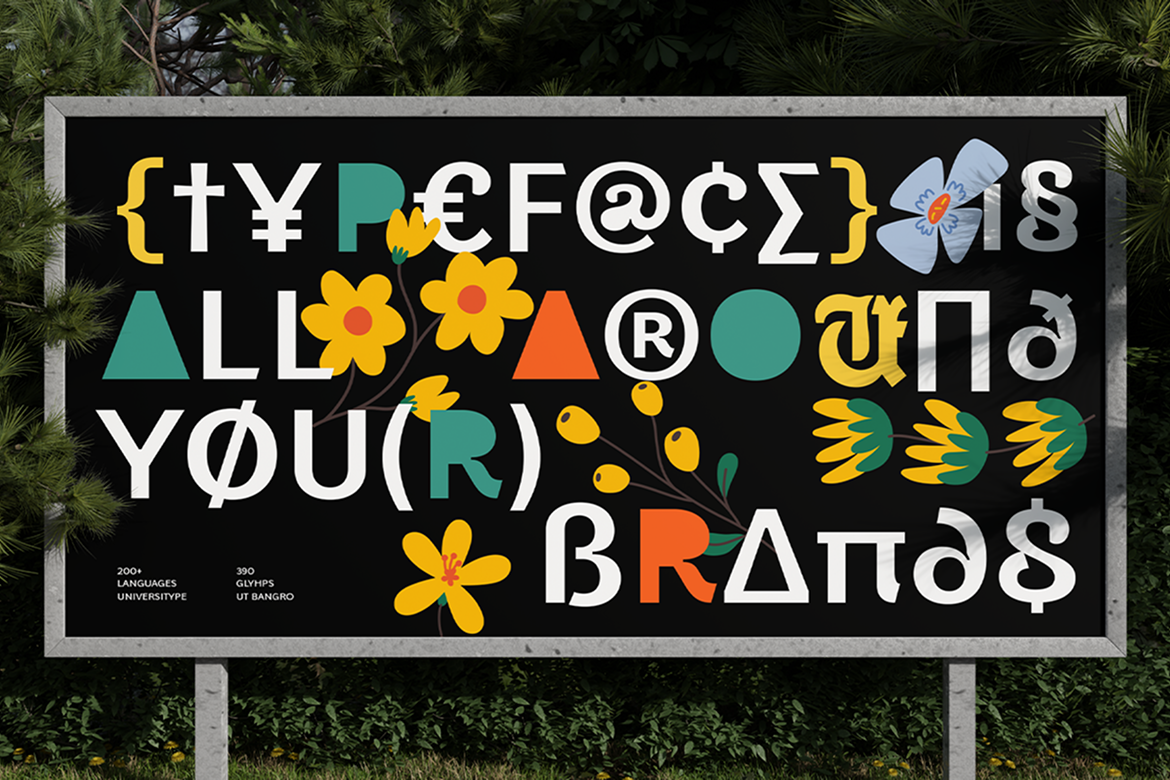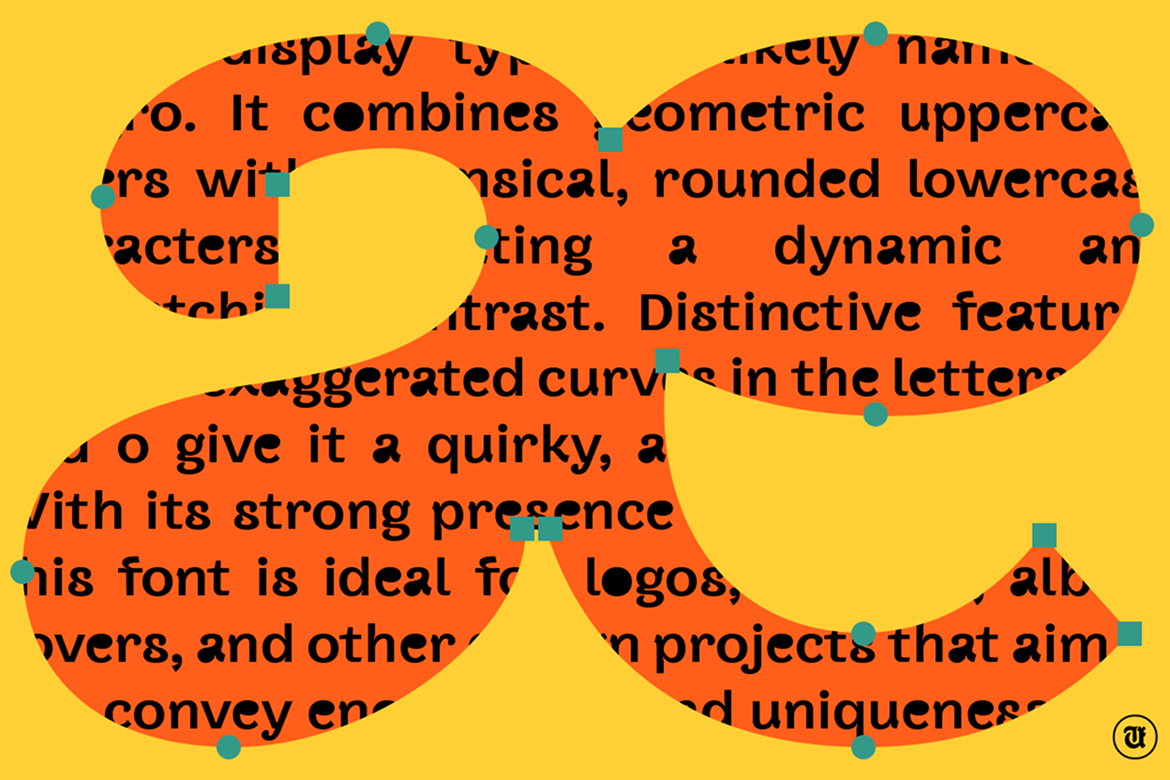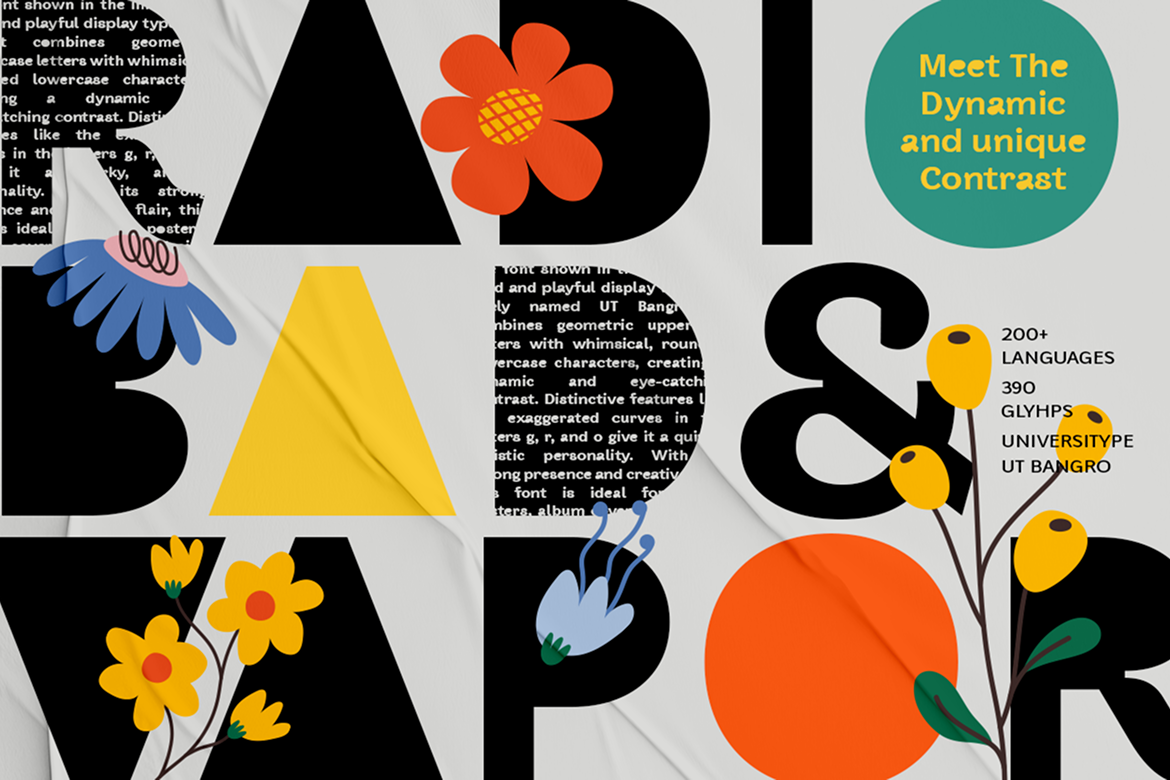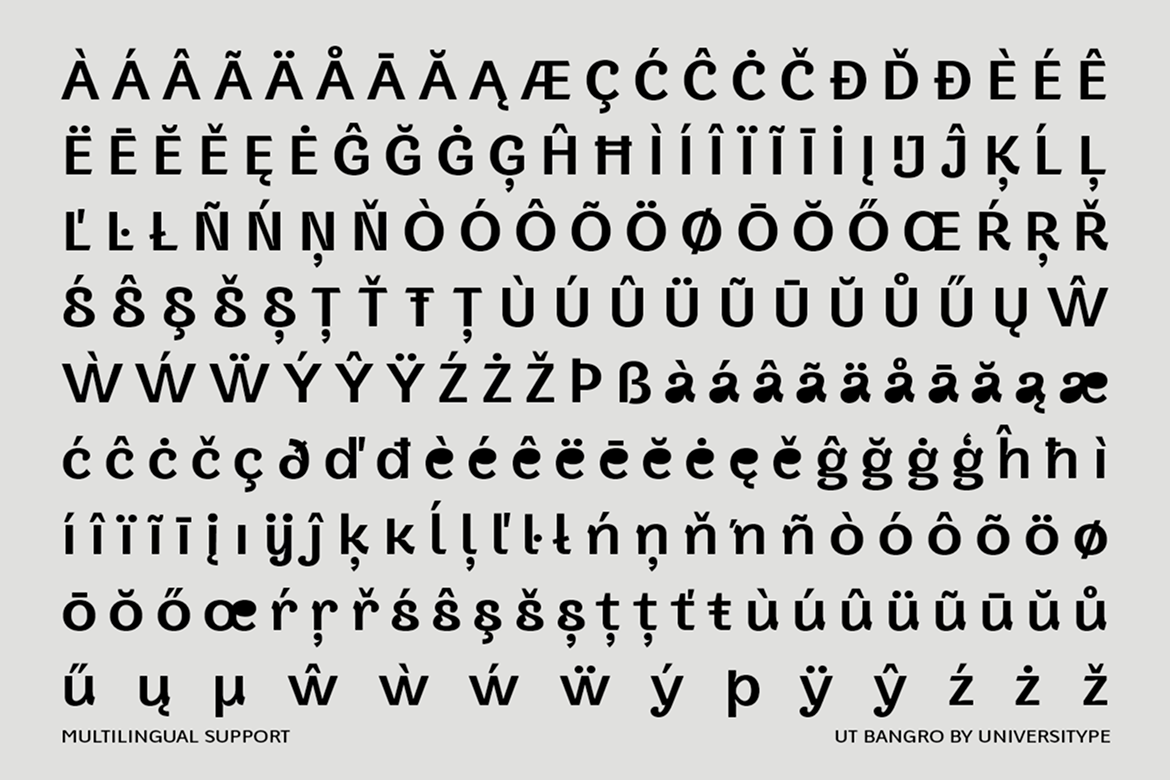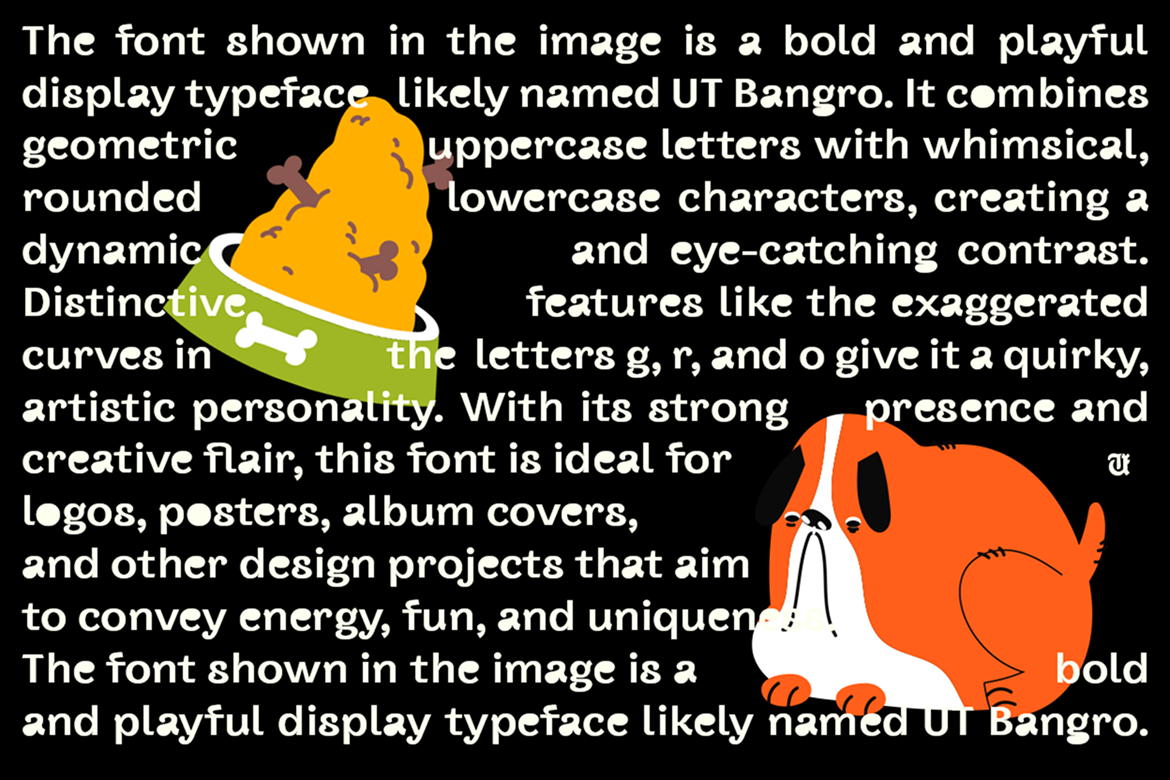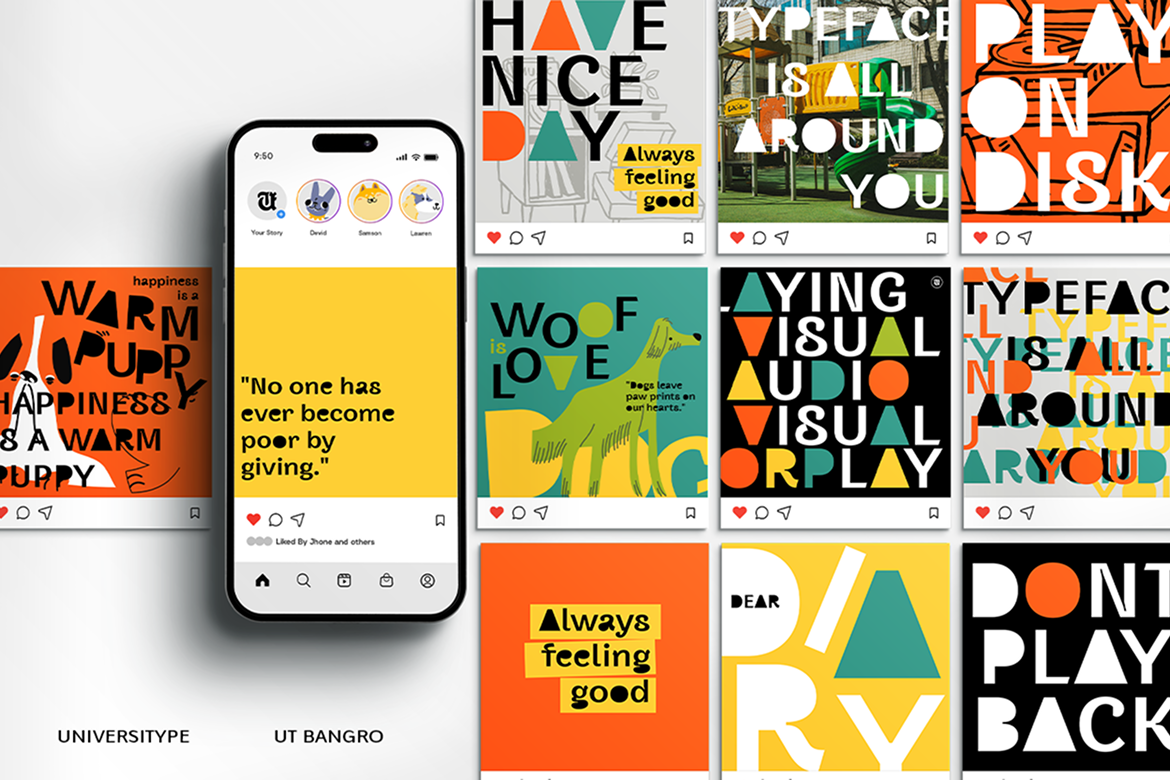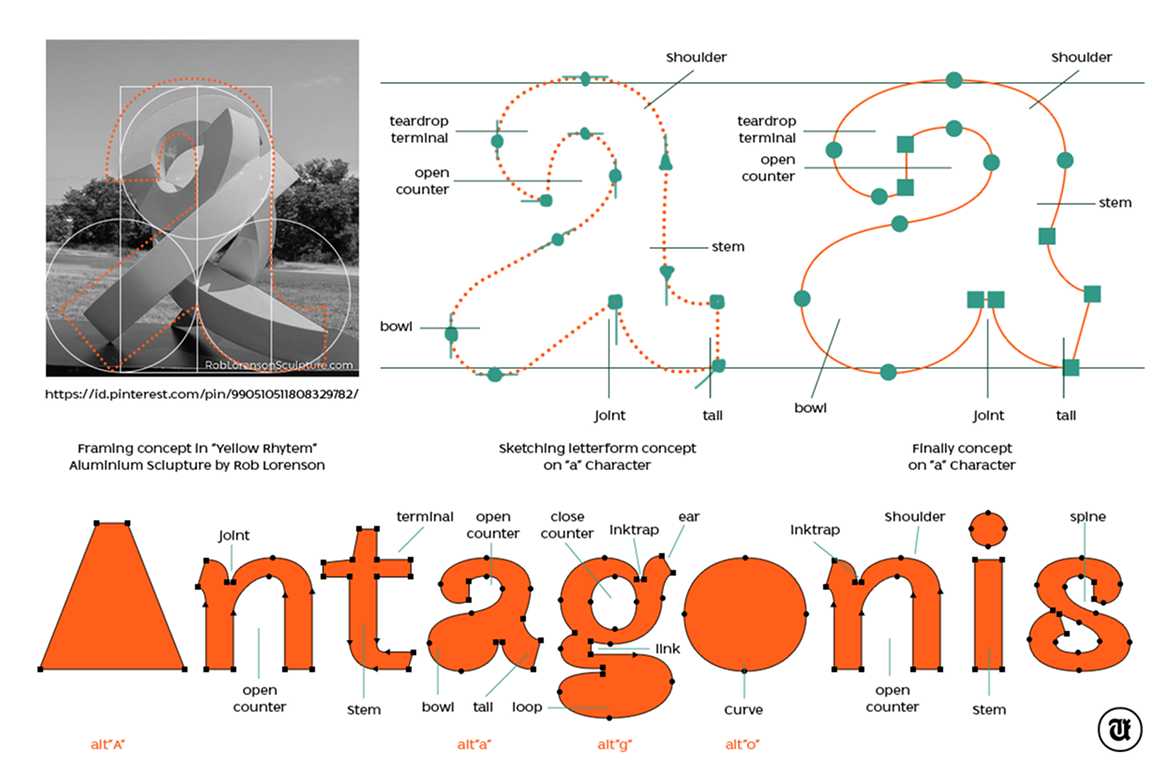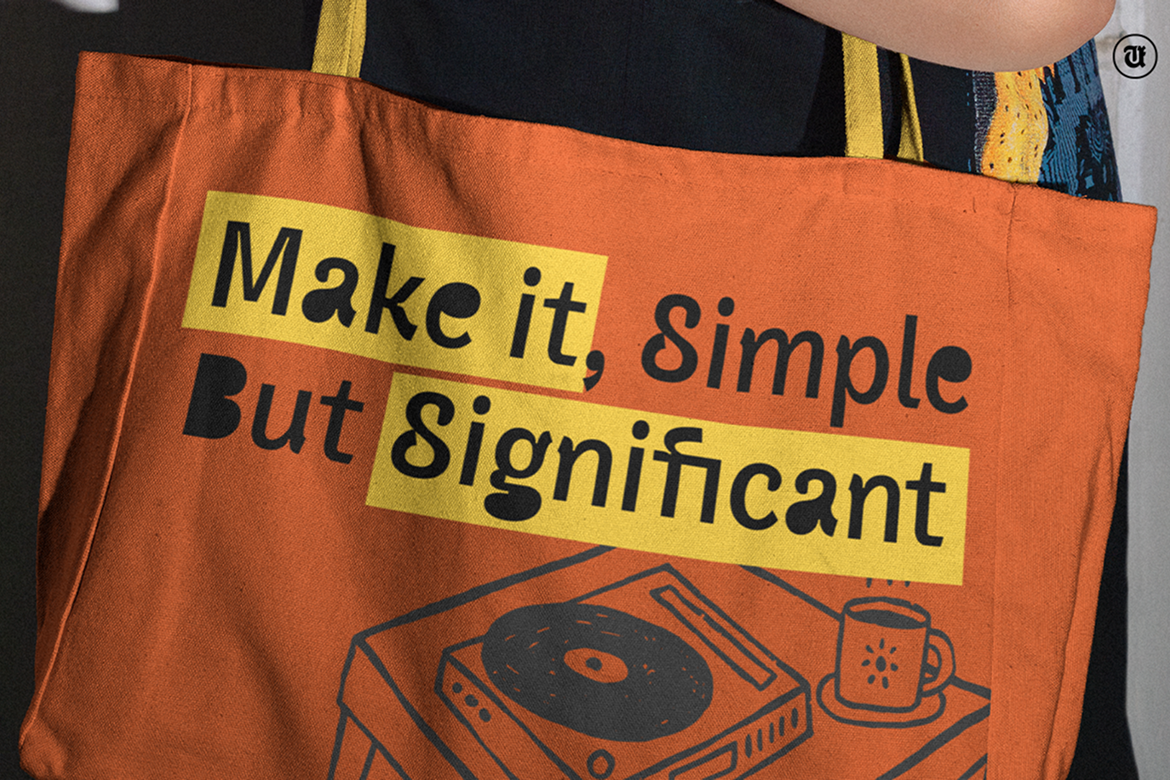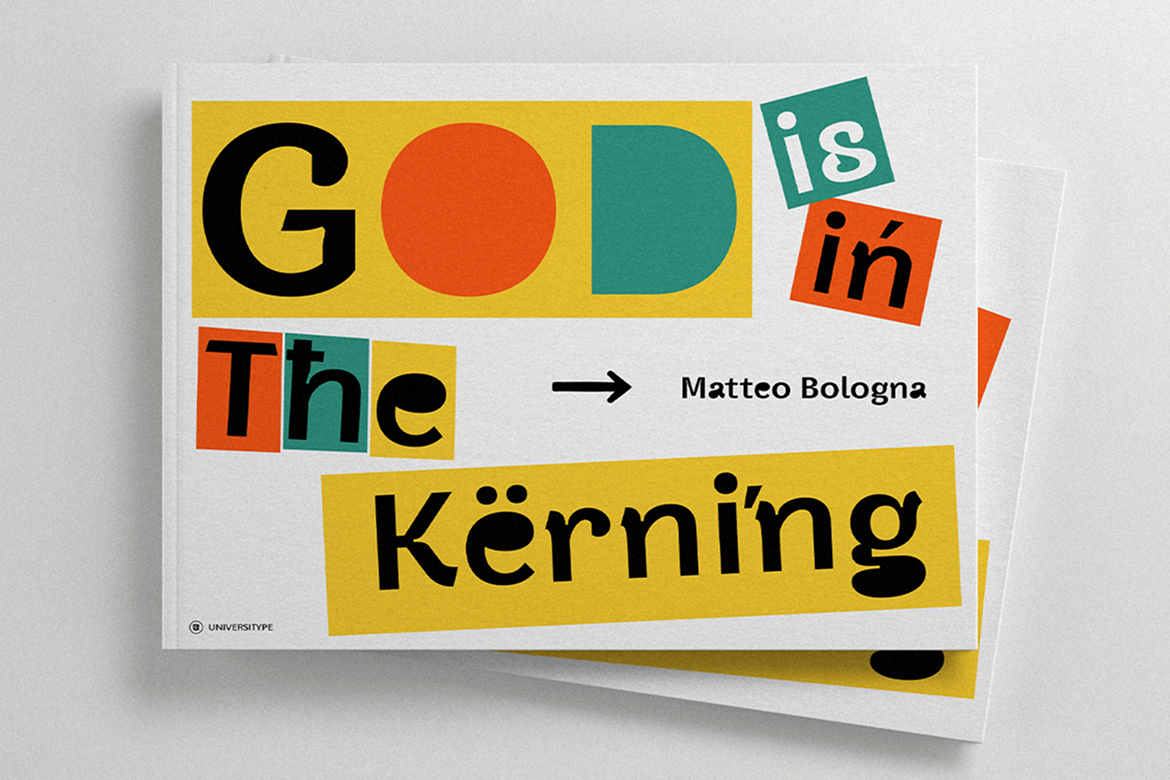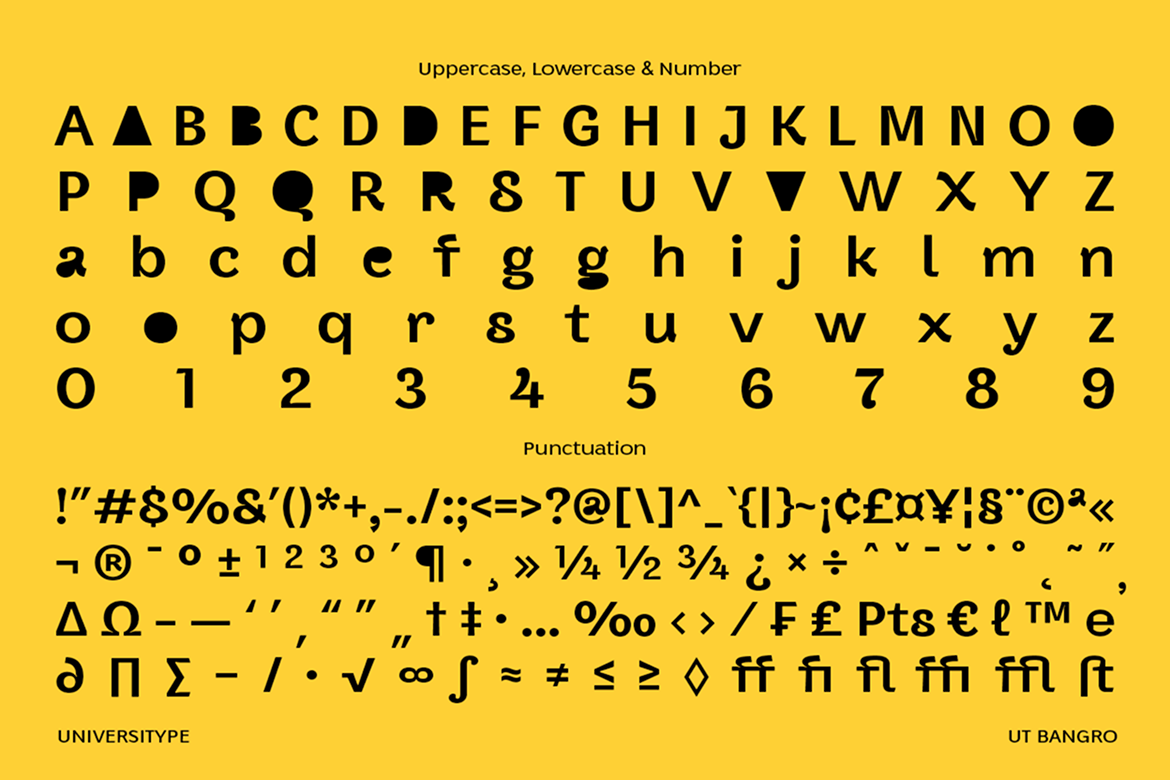
UT Bangro - A Bold Display Font
Meet UT Bangro – a bold display sans serif that combines playful energy with confident structure. Every curve, notch, and terminal has been carefully crafted to bring your words to life. It’s a typeface that doesn’t just speak—it shouts, dances, and smiles.
UT Bangro was designed for standout moments. Whether it’s a brand identity, editorial spread, poster design, or product label, this font adds instant charm and visual rhythm. The unique detailing and expressive alternates make it versatile, lively, and full of personality—without ever sacrificing legibility.
Who Is It For?
UT Bangro is made for creatives who dare to stand out:
- Designers building expressive, personality-driven brands
- Art directors crafting energetic, modern editorial layouts
- Packaging and merchandise creators who need visual punch
- Digital creators seeking a scroll-stopping headline font
- Anyone tired of soulless sans serifs and craving something fresh
If your work thrives on personality, movement, and play—UT Bangro belongs in your font library.
Key Features
- Playful sans serif with sculptural curves and teardrop terminals
- Alternates that add variation and depth (see “a”, “g”, and “o”)
- Bold ink traps and dynamic forms that command attention
- 390+ glyphs with multilingual support for over 200 languages
Designed for display use: posters, branding, editorial, web, packaging & more
Design Inspiration
The soul of UT Bangro is sculpted—not just drawn. This typeface finds its rhythm in the world of modern sculpture, specifically inspired by “Yellow Rhythm” by Rob Lorenson, a bold and flowing piece that bends steel into motion.
Much like Lorenson’s sculpture, UT Bangro thrives on the tension between form and freedom. The shapes are intentional yet organic—every curve, cut, and corner reflects the fluid dynamism of bent metal in space. The font mimics the illusion of movement: some letters lean forward slightly, others open wide like stretched limbs, giving the typeface a feeling of kinetic energy and emotional expression.
This inspiration shows up in:
The teardrop terminals, echoing the tapered ends of sculptural curves
The asymmetrical counters, reflecting light and shadow play
The ink traps, not just functional, but expressive—carving visual rhythm into text
The overall “dance-like” posture of each letter, creating momentum across words
The result? A font that feels alive. Not static or stiff, but vibrant and energetic—just like the contemporary art that inspired it.
UT Bangro isn’t just a tribute to form—it’s a celebration of movement, contrast, and controlled chaos. It’s for designers who see letters not as symbols, but as shapes with soul.
Technical Details
- Font Style: Display Sans Serif
- Character Set: 390+ glyphs, 200+ languages
- Optimized for: Headlines, Posters, Merch, Web Banners, Branding Systems